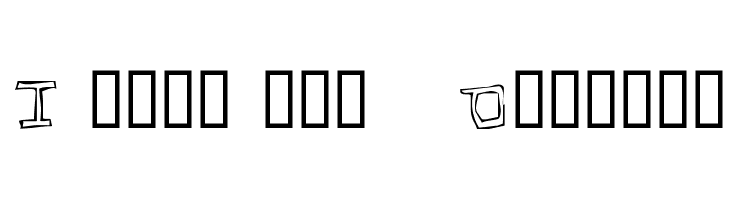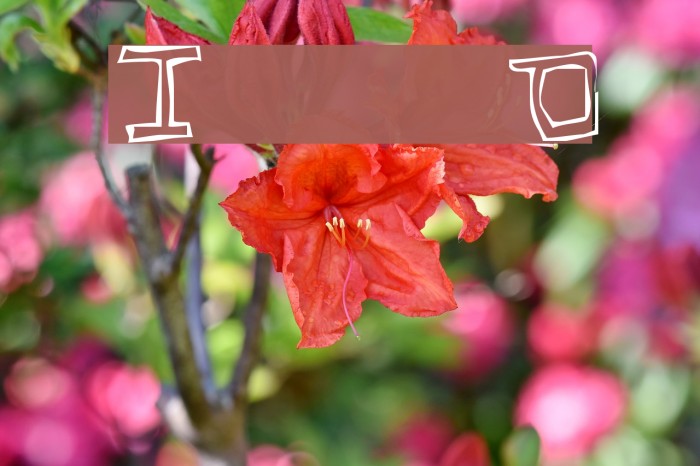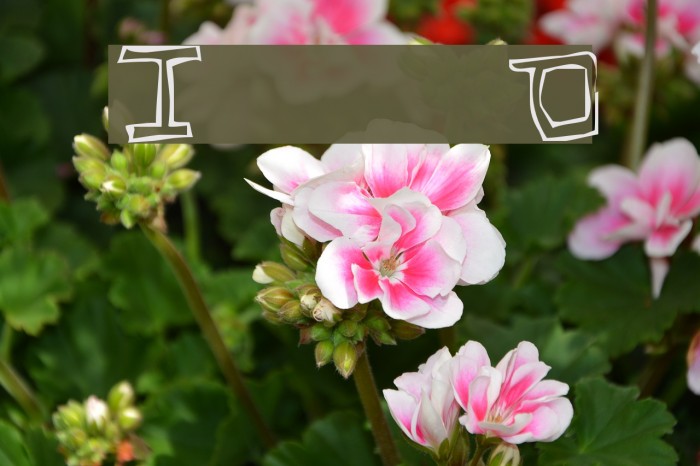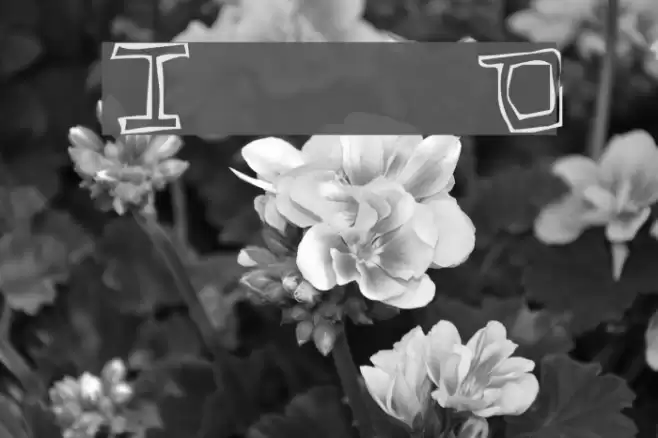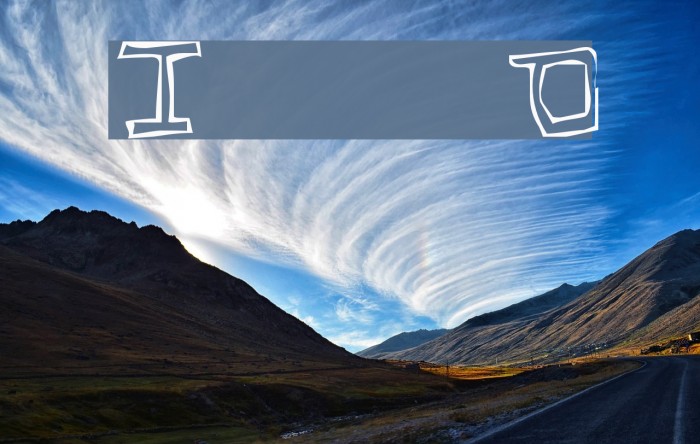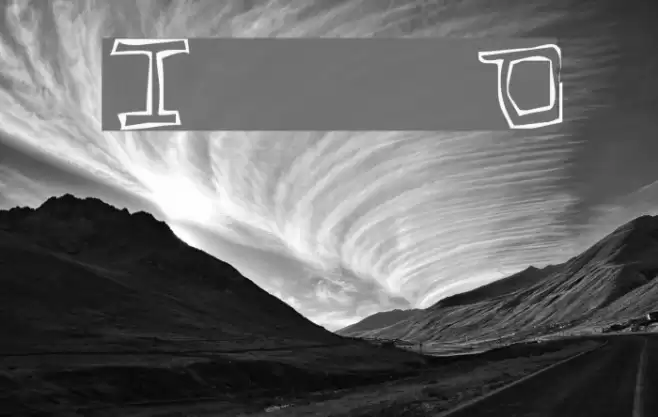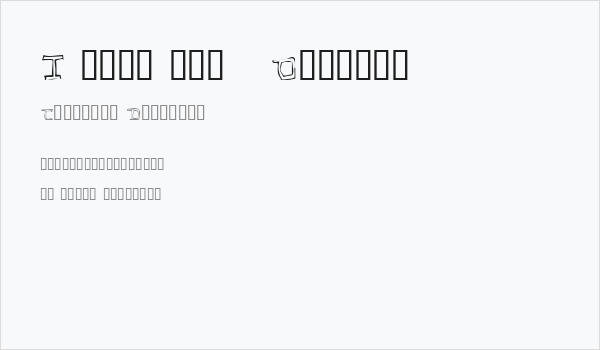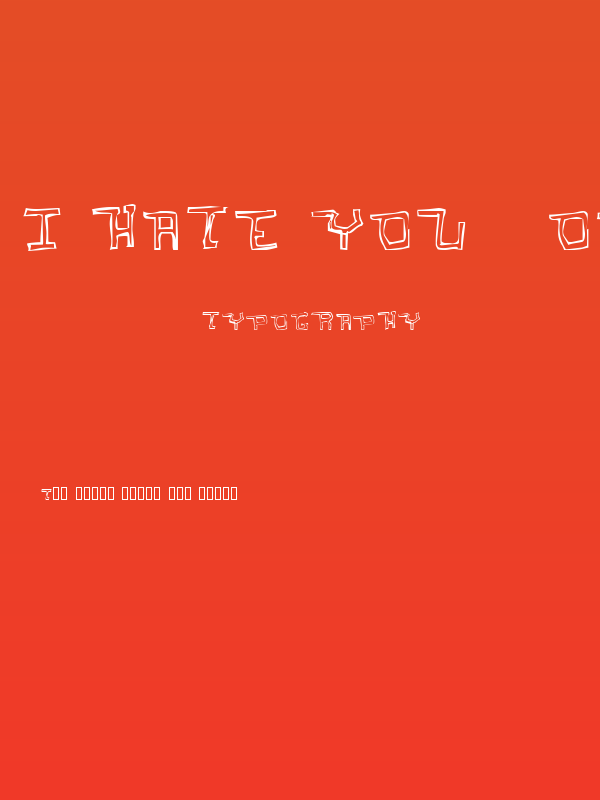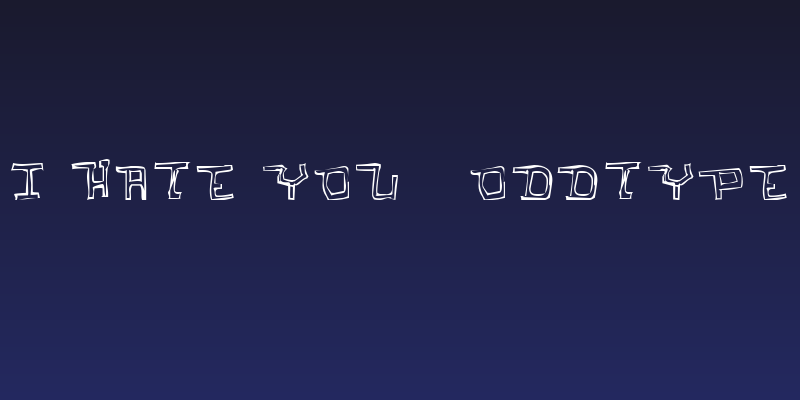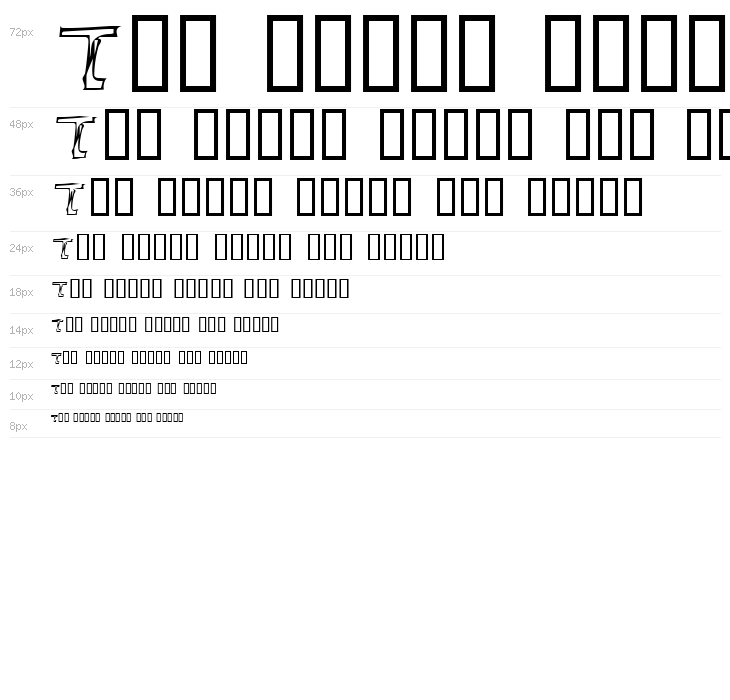
I hate you Oddtype Font
I hate you Oddtype Description
This font features a unique, hand-drawn style with a playful and slightly chaotic appearance. The uppercase letters have a distinct, irregular outline that gives them a dynamic and energetic feel. Each character appears to have been sketched with a rough, uneven stroke, adding to the font's quirky and artistic vibe. The font lacks lowercase letters and numbers, focusing solely on uppercase characters and a few special symbols. Its unconventional design makes it stand out, ideal for projects that require a bold and creative touch.
| Overall Style | Artistic, Quirky |
| Use Case | Headlines, Artistic Branding |
| Proposed Projects | Ideal for creative projects like posters, album covers, and artistic branding where a unique and bold statement is needed. |